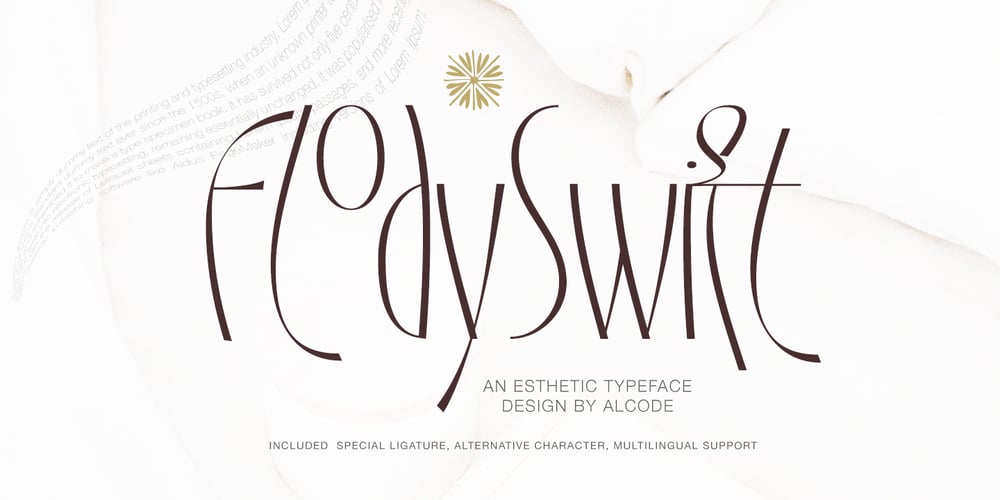
Flodyswift
Flodyswift font
Flodyswift Font Family was designed by Sukjana Almunandar and published by Alcode. Flodyswift contains 1 styles and family package options. Flodyswift is an esthetic typeface with ligatures also complete multilingual glyphs. Flodyswift come with Regular style, it will make this typeface can be used in all design projects and works perfectly for pairing with script typeface or handmade fonts, Headlines, Posters, Packaging, T-shirts, Postcards, Invitation, Wedding Sign, Sign Painting, Signboard, and much more.Try Flodyswift, enjoy the richness of OpenType features and let her fun and elegant excitement make you happy and enhance your creativity! You can use this font very easily.• Multilingual Support And Special Ligatures